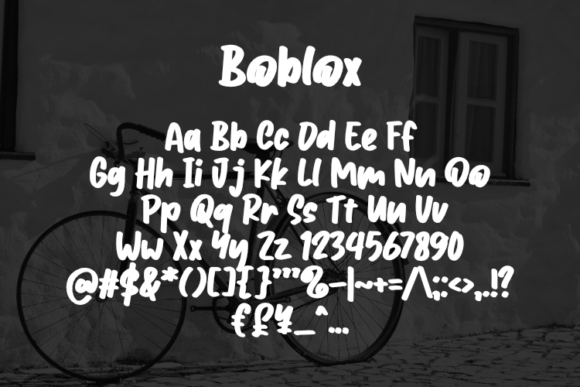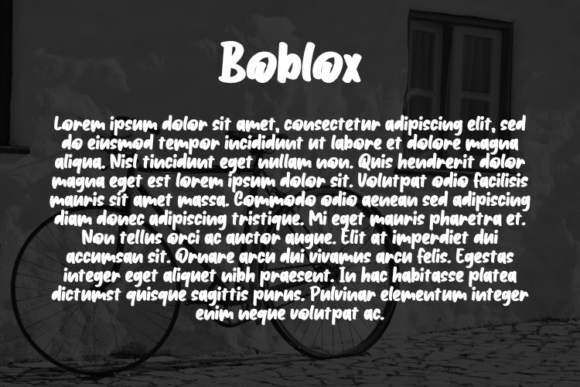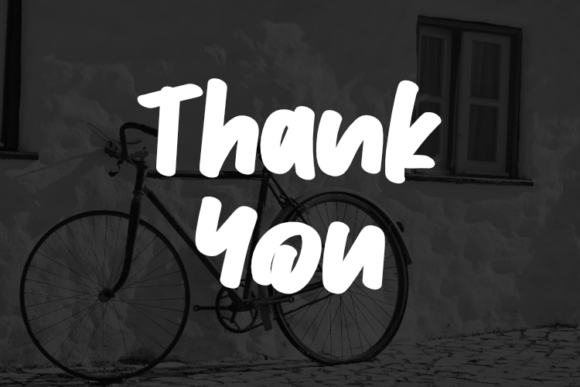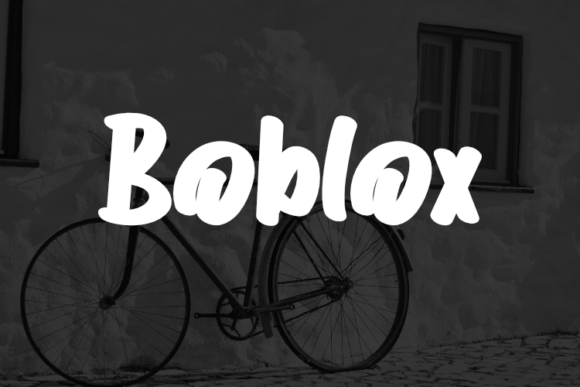
The Boblox Font: A Designer’s New Best Friend
I’ll never forget the time I was working on a project for a client who wanted a modern and elegant look. I had spent hours scouring the internet for the perfect font, but nothing seemed quite right. That was until I stumbled upon the Boblox font. With its sleek lines and excellent readability, it was love at first sight. In this article, I’ll share my experience with the Boblox font, its features, and how to make the most of it in your designs.
What is Boblox Font?
Boblox is a modern and elegant typeface designed for flexibility and excellent readability across a wide range of media. Its .otf (OpenType Font) file format offers superior cross-platform compatibility, making it an ideal choice for all design software and office applications, including Adobe Creative Suite, Microsoft Office, and other design software.
I’ve had the pleasure of working with the Boblox font for several projects, and here’s what I think:
- ✨ Excellent Readability: The Boblox font is clear and easy to read, even at small sizes.
- ✅ Flexibility: It works well across various media, from digital screens to print materials.
- 🌈 Modern and Elegant: The font has a sleek, contemporary look that’s perfect for designs that need a bit of sophistication.
While the Boblox font is excellent, there are a few minor things to keep in mind:
- 🤔 Not Ideal for Body Text: While it’s readable, the Boblox font is better suited for headings and titles rather than long blocks of text.
The Boblox font was created with the goal of providing a modern, elegant, and highly readable typeface. While the specific designer behind Boblox might not be widely known, the inspiration likely came from a desire to create a versatile font that could be used across various media. The result is a font that’s both stylish and functional.
In conclusion, the Boblox font is a versatile and elegant typeface that’s perfect for designers, crafters, and creative hobbyists looking for a modern and readable font. Its cross-platform compatibility and OpenType features make it an excellent choice for a wide range of design projects.